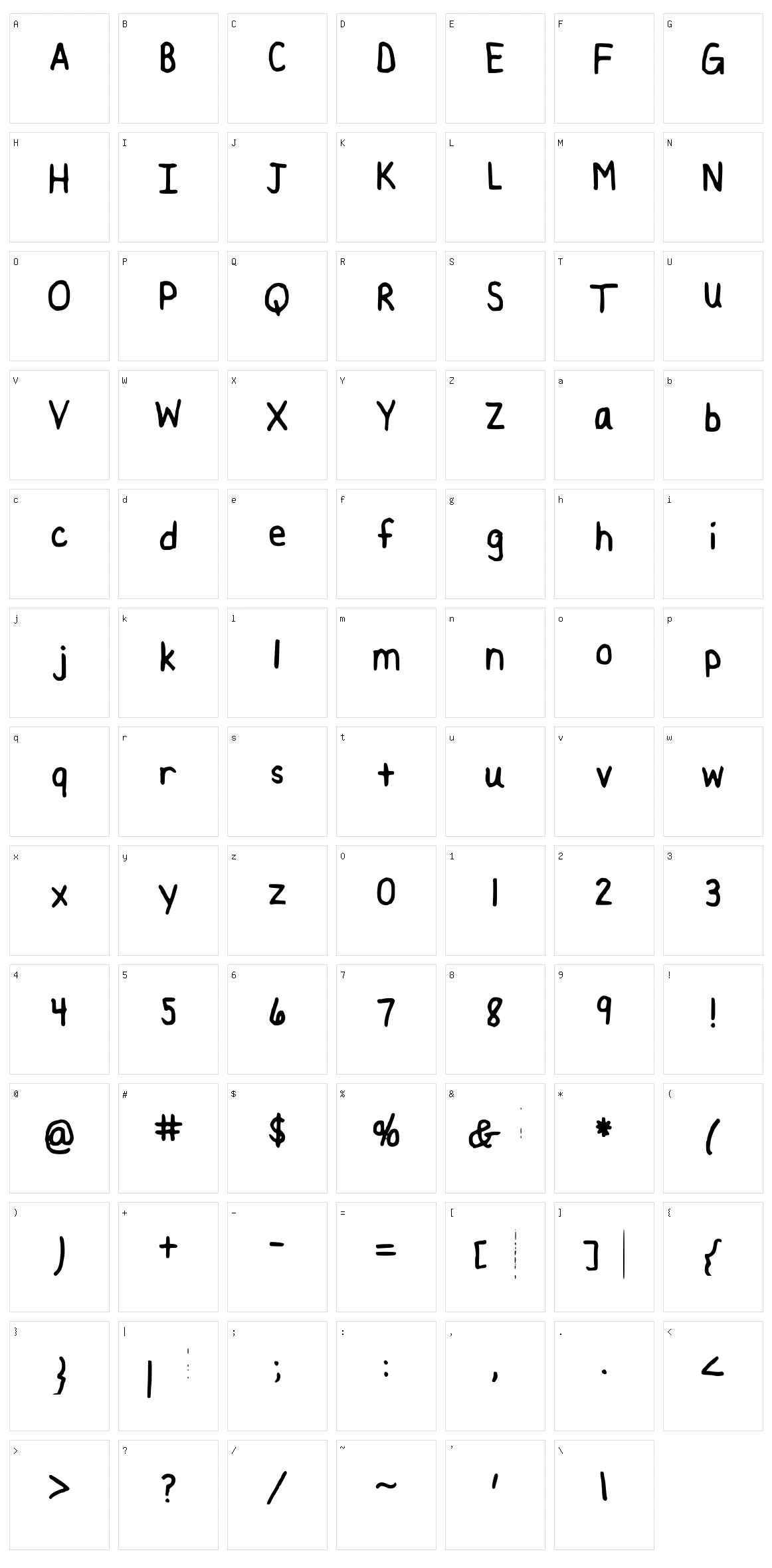
The free font Leslie is carefully designed by Aaron McQueen, showcasing a thoughtful balance of creativity and usability and falls under the Script font style. When you download the ZIP file, it contains only 21.16 KB of font files, making it lightweight and quick to download. Please review the license details below to understand permitted usage and distribution rights. If license information is not available, we recommend using this font for personal projects only or contacting the author directly for commercial usage permissions.